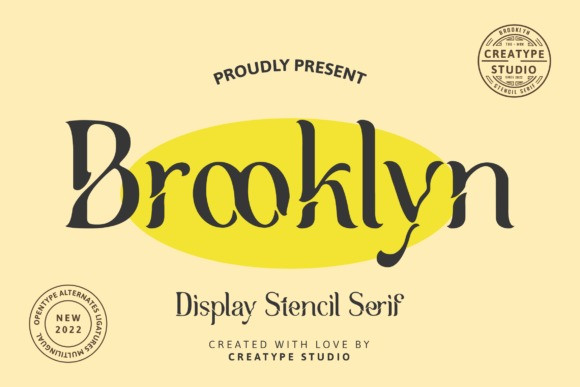
Brooklyn Font
Brooklyn Font is a chic and unique serif font that exudes sophistication and individuality. With its sleek lines and unique details, Glamour adds a touch of glamour to any design project. Perfect for branding, editorial design, and luxury products, Glamour is the perfect choice for those who want to make a statement with their typography.